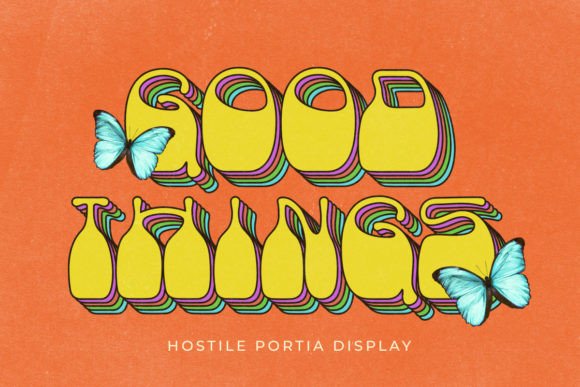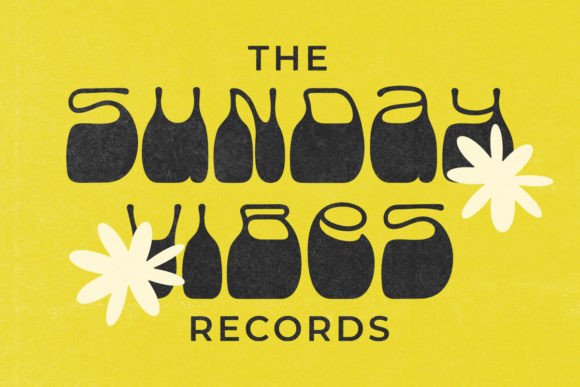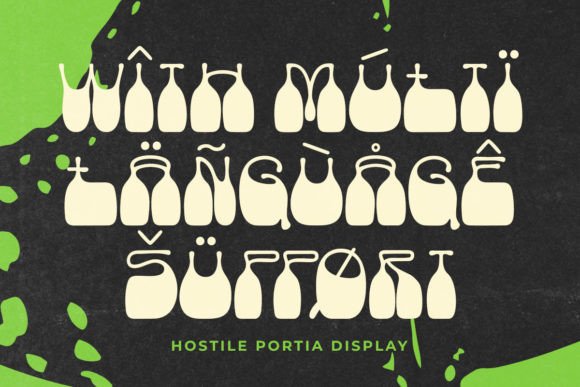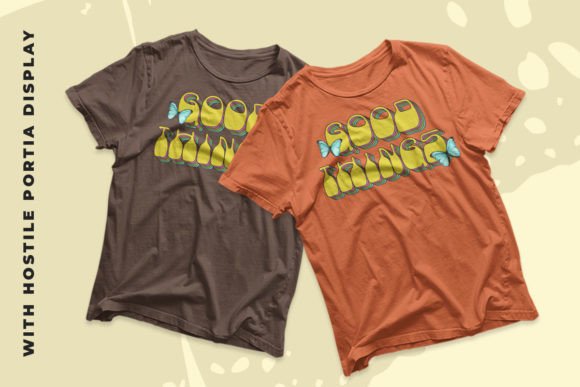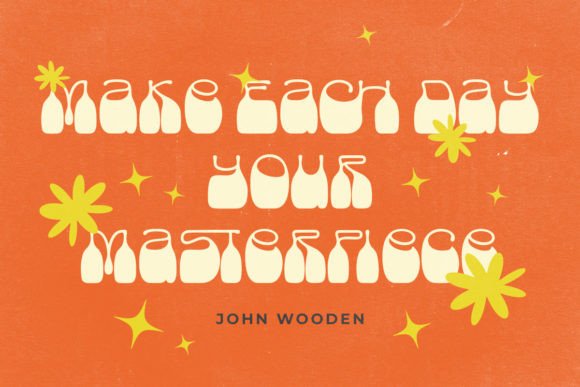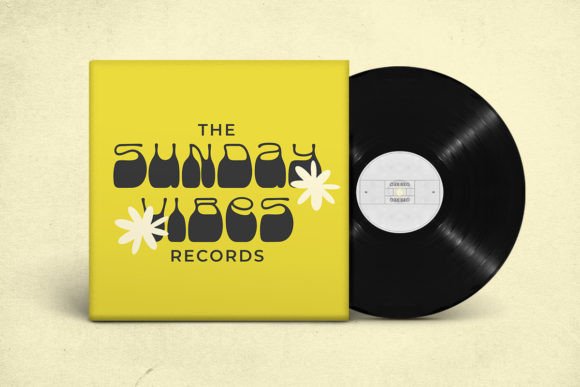
The Perfect Disturbance: Elevating Your Creations with Hostile Portia Font
There’s something magical about the moment when a design concept finally comes together – the spark of creativity, the thrill of experimentation, and the satisfaction of bringing a vision to life. But, let’s face it, sometimes we need a little disruption to shake things up and take our work to the next level. That’s where Hostile Portia Font comes in – a reverse display font that’s equal parts bold and beautiful.
Hostile Portia Font is more than just a font; it’s a statement piece that can elevate any creation, no matter the topic or style. Its unique aesthetic makes it an invaluable asset to any designer’s library, and its potential to disrupt the status quo is undeniable. Whether you’re a seasoned pro or just starting out, Hostile Portia Font is sure to inspire and intrigue.
Hostile Portia Font Key Features
• Unique Characteristics: This font features a distressed, vintage aesthetic with rough edges and imperfections, giving it a unique and eye-catching appearance.
• Font Style: Display, Sans-Serif
• Font Weight: Regular, Bold, Italic, Bold Italic
Hostile Portia Font Review
Overall, I’d say Hostile Portia is a unique and intriguing font that stands out from the crowd. ✨ Here are some things that I think work well:
• The bold and edgy feel of the font makes it perfect for designs that need a touch of rebelliousness or grit.
• The varying line widths and irregularities add a sense of character and handmade charm, which can be very appealing in certain contexts.
• The font is highly legible, even at smaller sizes, which is a testament to the designer’s attention to detail and understanding of typography.
• The font may not be suitable for designs that require a more traditional or conservative look, as it can come across as a bit too bold or over-the-top.
• The irregularities in the font’s design may not be to everyone’s taste, and some users may find it difficult to read or use.
• The font’s character set is not as extensive as some other fonts, which may limit its versatility in certain applications.
Overall, I think Hostile Portia is a solid choice for designers who want to add a bit of edge and personality to their work. While it may not be the best fit for every project, it’s definitely worth considering for designs that need a bold and eye-catching touch.
Getting the Most Out of Hostile Portia Font
To get the most out of Hostile Portia font, consider the following tips:
• Use it for bold and eye-catching headings.
• Pair it with other fonts for a unique and stylish look.
• Experiment with different font sizes and colors to create visual interest.
Hostile Portia font is commonly used in:
• Graphic design projects.
• Branding and marketing materials.
• Editorial and publishing projects.
Alternatives to Hostile Portia Font
1. Akkurat
Akkurat is a sans-serif font that is clean and elegant. It is ideal for use in designs where you need to convey a sense of sophistication and professionalism. Akkurat has a similar geometric feel to Hostile Portia, but it is more refined and polished. It is a good choice when you need a font that is easy to read and works well in a variety of settings.
Comparison to Hostile Portia: Akkurat is more refined and polished than Hostile Portia, with a cleaner and more elegant feel. It is a good choice when you need a font that is easy to read and works well in a variety of settings.
Montserrat is a sans-serif font that is modern and sleek. It is ideal for use in designs where you need to convey a sense of energy and dynamism. Montserrat has a similar geometric feel to Hostile Portia, but it is more angular and edgy. It is a good choice when you need a font that is bold and eye-catching.
What is the recommended font size and line height for Hostile Portia?
For optimal readability, we recommend using a font size between 12-14 points and a line height of at least 1.2-1.5 times the font size. This will ensure that the text is clear and easy to read, even at smaller font sizes.